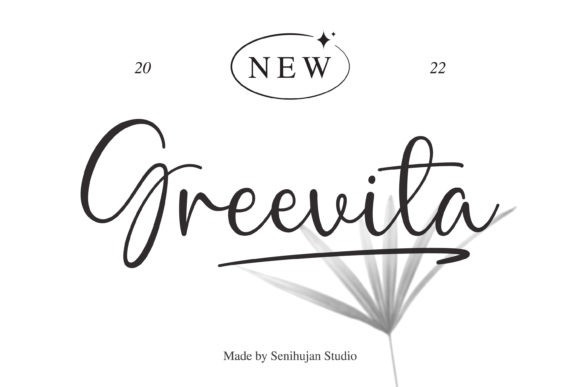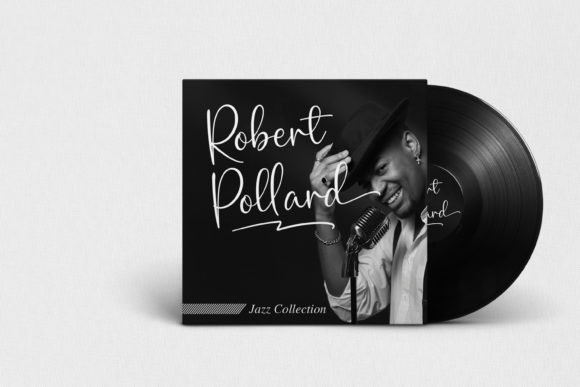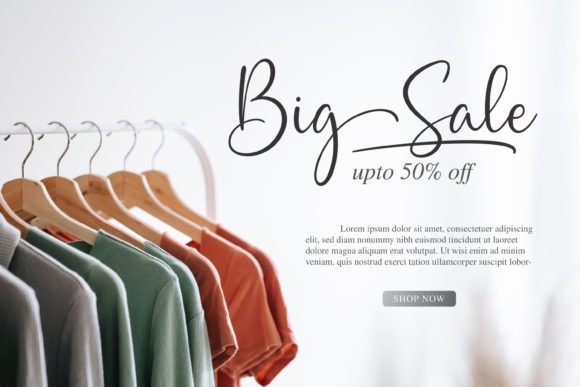
Greevita Font
Greevita is a sweet and cursive handwritten font. This gentle font will look gorgeous on a variety of design ideas. This font is PUA encoded which means you can access all of the glyphs and swashes with ease!